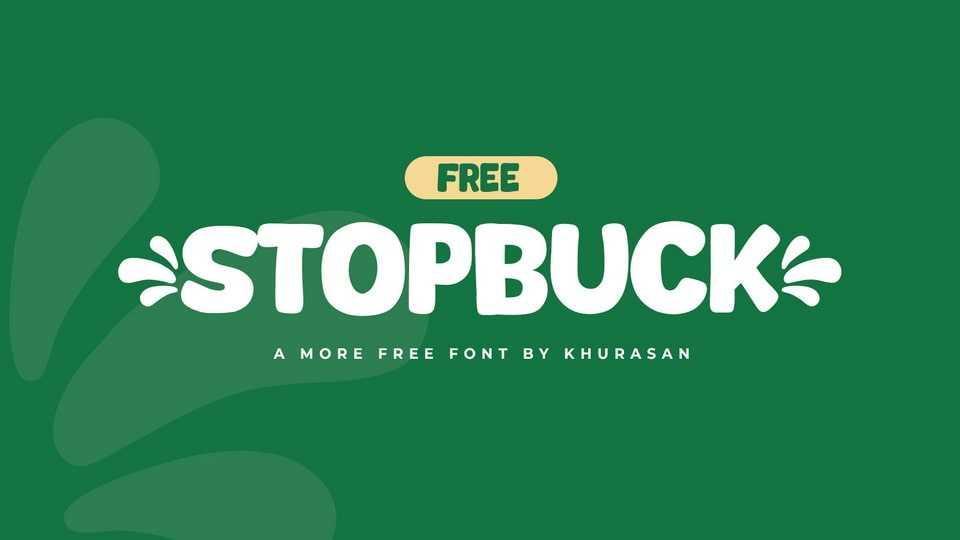
Download Stopbuck font, a hand crafted typeface that effortlessly blends boldness with a friendly, cartoonish charm. Each letter in Stopbck font is a burst of positivity, featuring bold strokes and playful details that radiate a welcoming and approachable vibe.